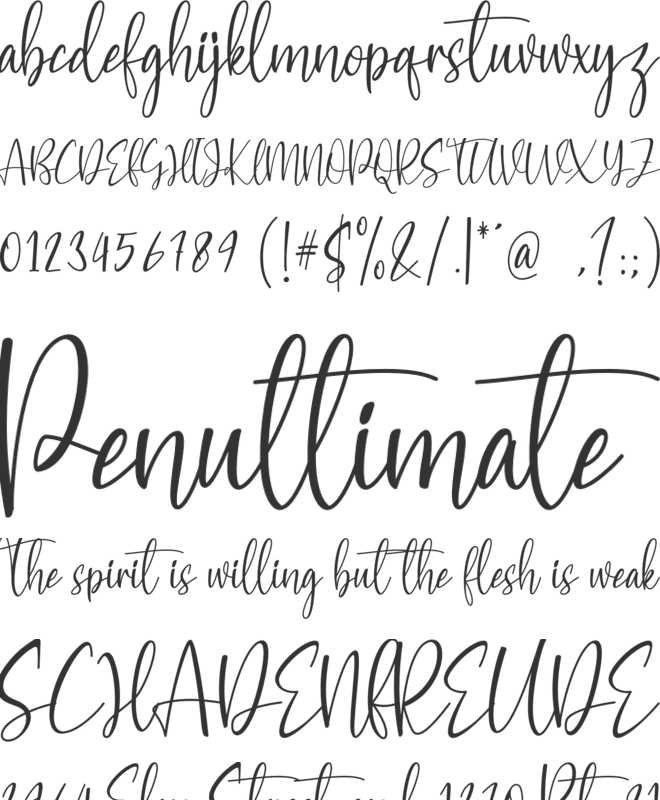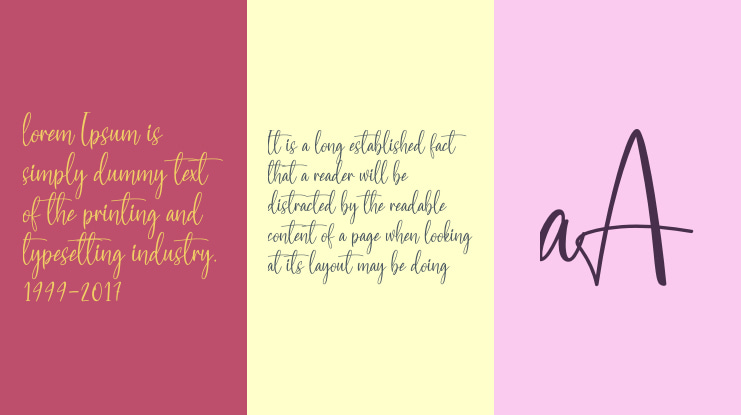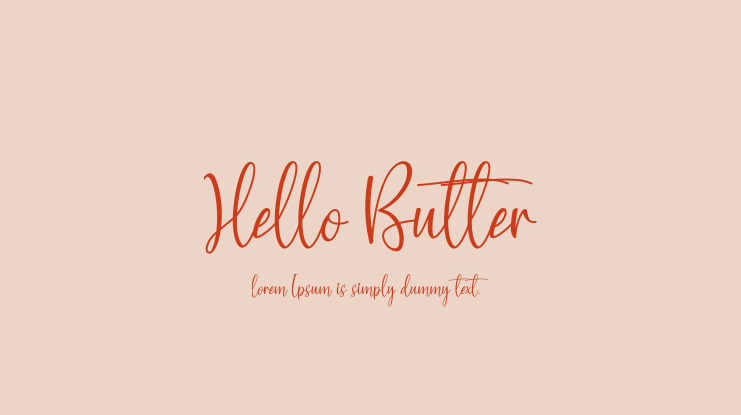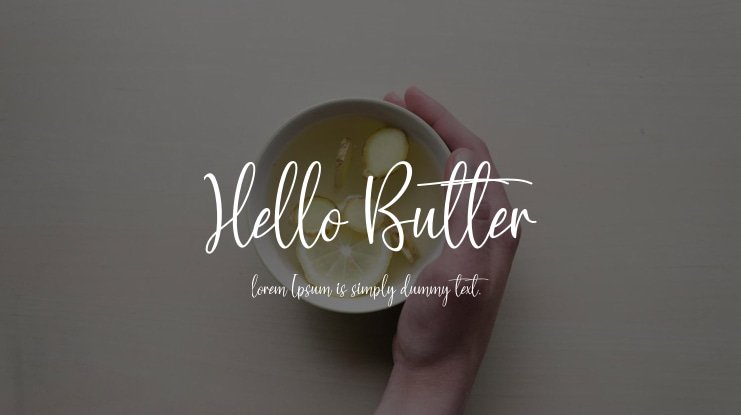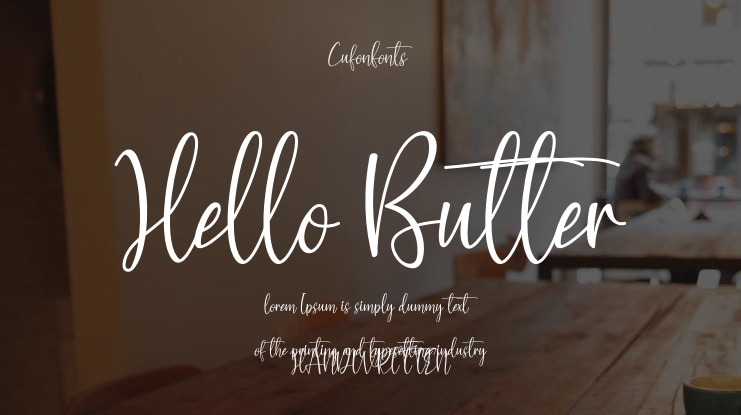
Hello Butter Font
Special creative products for you! Our products provide an extraordinary experience. The latest style letters are perfect for wall displays, wedding invitations, social media post logos, advertisements, product packaging, product designs, labels, photography, watermarks, invitations, stationery, and any project that requires tasteful handwriting.